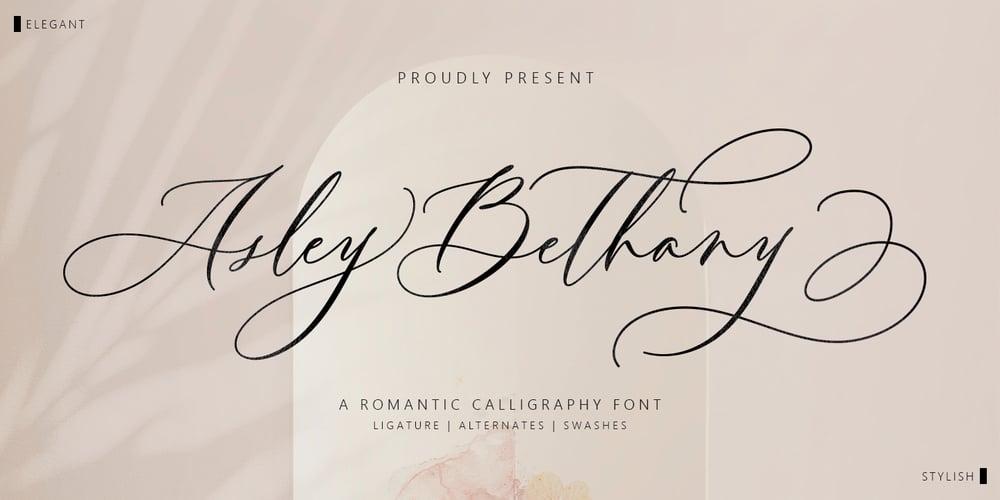
Asley Bethany Font Family was designed by Jamaluddin and published by Jamalodin. Asley Bethany contains 1 styles and family package options. Asley Bethany is a beautiful modern calligraphy script font that is suitable for branding, wedding invitations, greeting cards, posters, name card, quotes, blog header, logo, fashion, apparel, letter, stationery and other projects.Asley Bethany come with 600+ glyphs. The alternative characters were divided into several Open Type features such as Swash, Stylistic Sets, Stylistic Alternates, Contextual Alternates. The Open Type features can be accessed by using Open Type programs such as Adobe Illustrator, Adobe InDesign, Adobe Photoshop Corel Draw X version, And Microsoft Word. And this Font has given PUA unicode (specially coded fonts). so that all the alternate characters can easily be accessed in full by a craftsman or designer.Asley Bethany Script :Uppercase ( Two style ) & Lowercase International Language & Symbols Support Punctuation & Number PUA Unicode Range Standard Stylistic Alternates Stylistic Set 1-20 Character Variant Contextual. If you don’t have a program that supports OpenType features such as Adobe Illustrator and CorelDraw X Versions, you can access all the alternate glyphs using Font Book (Mac) or Character Map (Windows).If you have any question, don’t hesitate to contact me. Thanks for your visit.